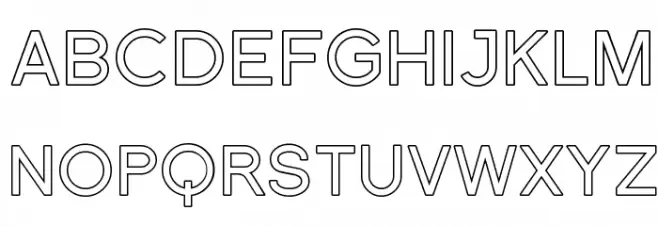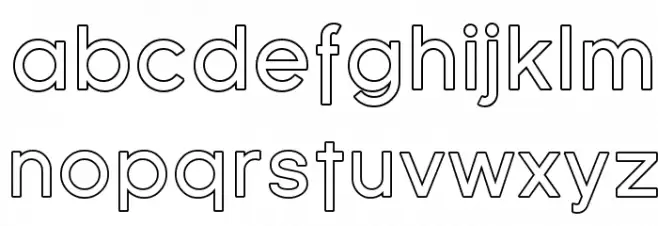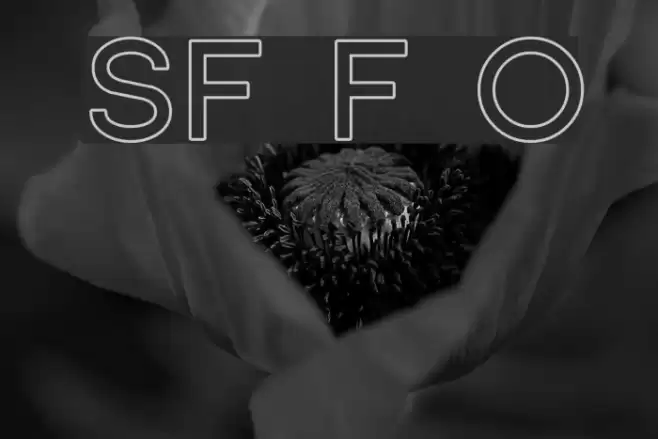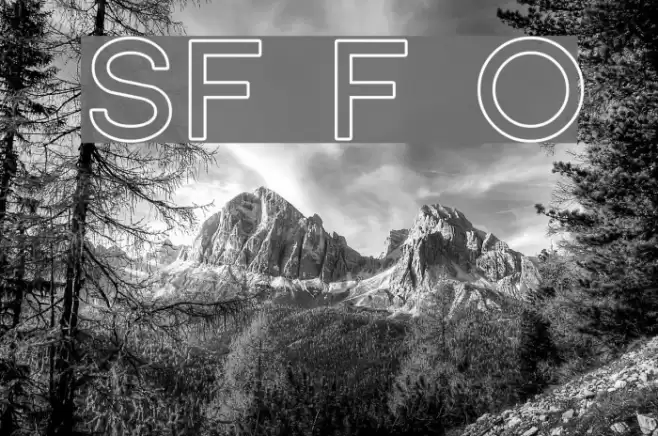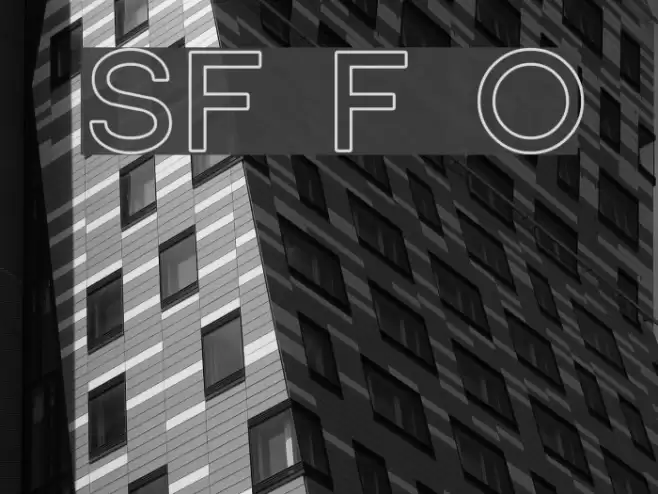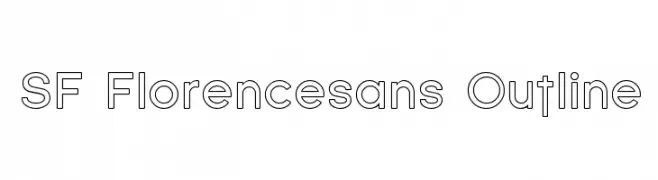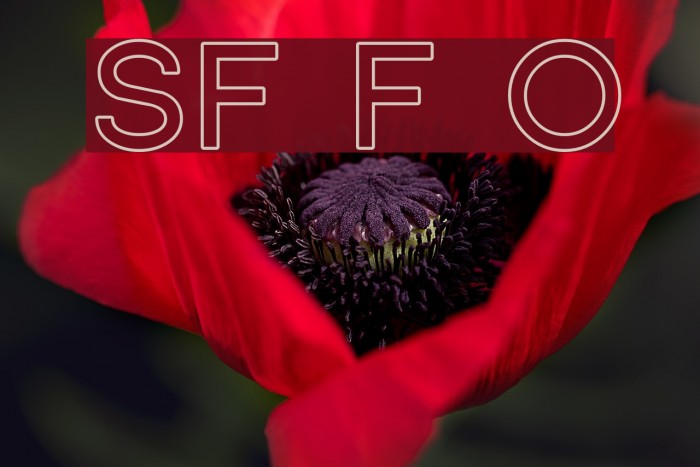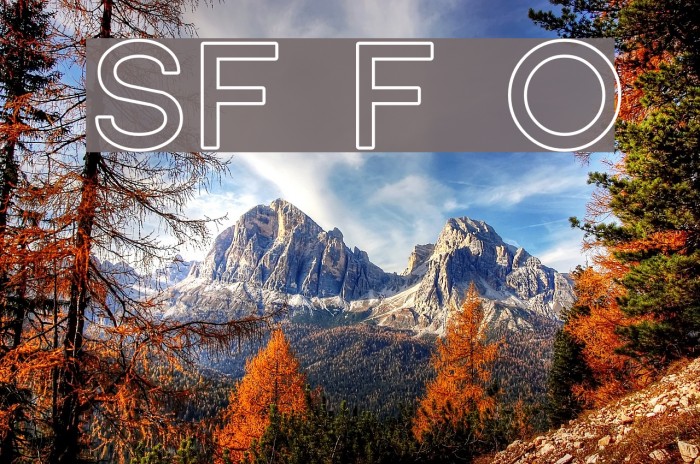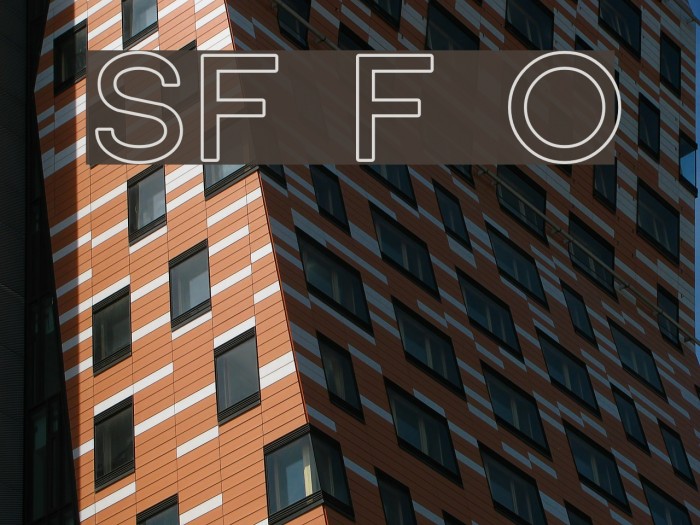
SF Florencesans Outline
This font features a clean, geometric sans-serif style with an outline design that gives it a modern and minimalistic appearance. The characters are evenly spaced and maintain a consistent stroke width throughout, creating a uniform look. The uppercase and lowercase letters are well-proportioned, with rounded edges that soften the overall aesthetic. The numerals and special characters are designed to match the letterforms, ensuring a cohesive appearance across all glyphs. This font's outline style makes it particularly suitable for creating striking visual effects, as it allows for creative use of color and background textures.
A modern, geometric sans-serif font with an outline style.
- Proposed Projects: Ideal for branding, posters, headlines, and digital graphics where a modern and clean look is desired.
- Use Case: Headlines, Logos, Posters